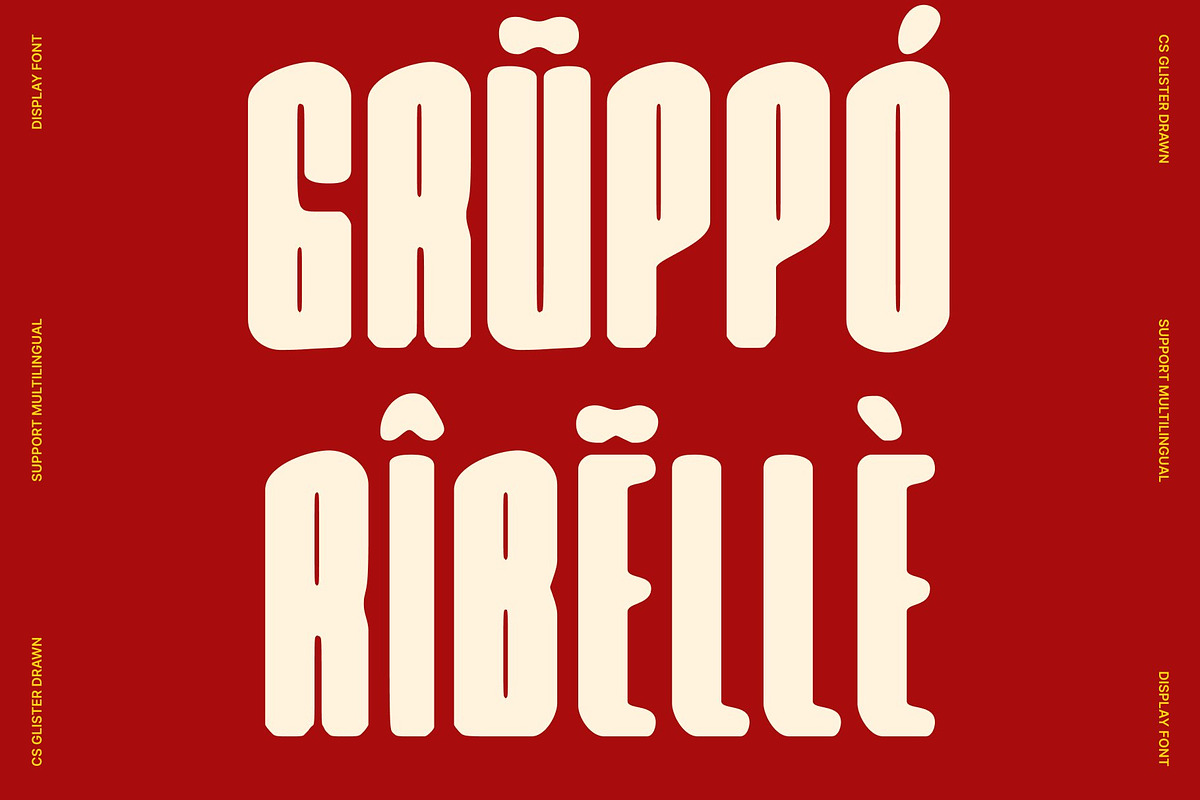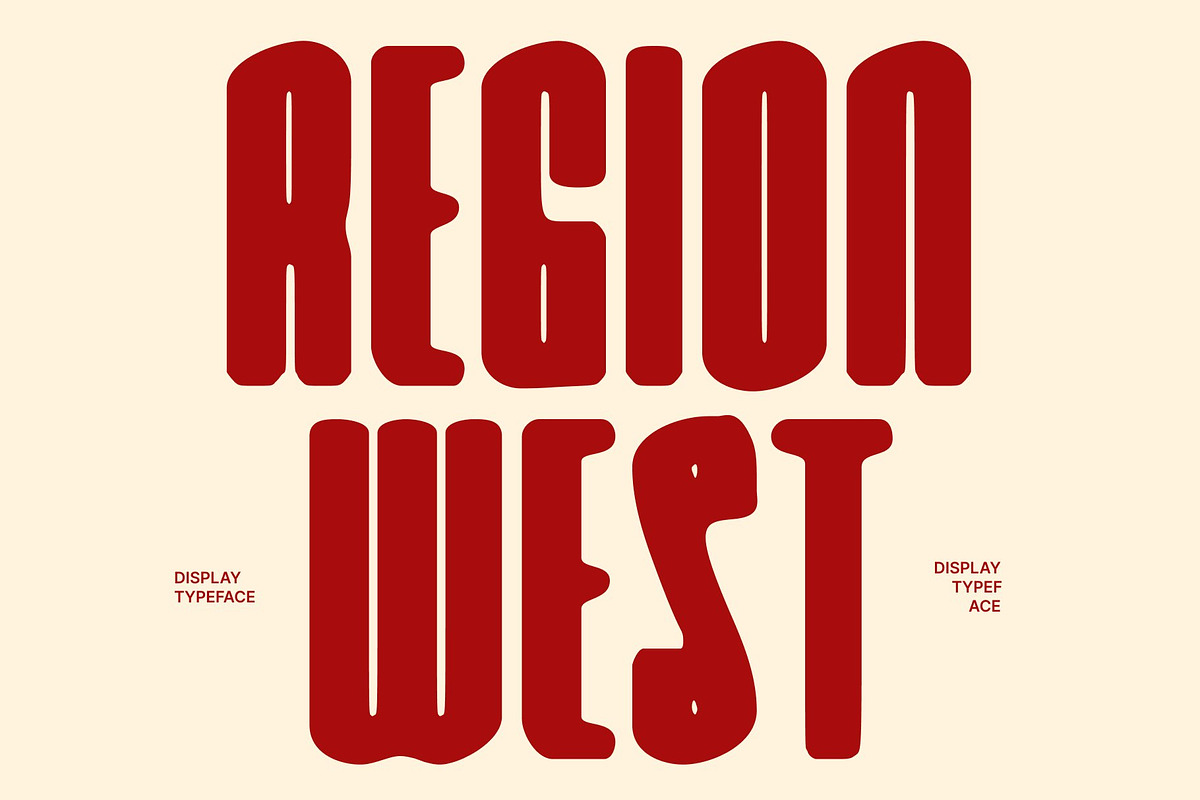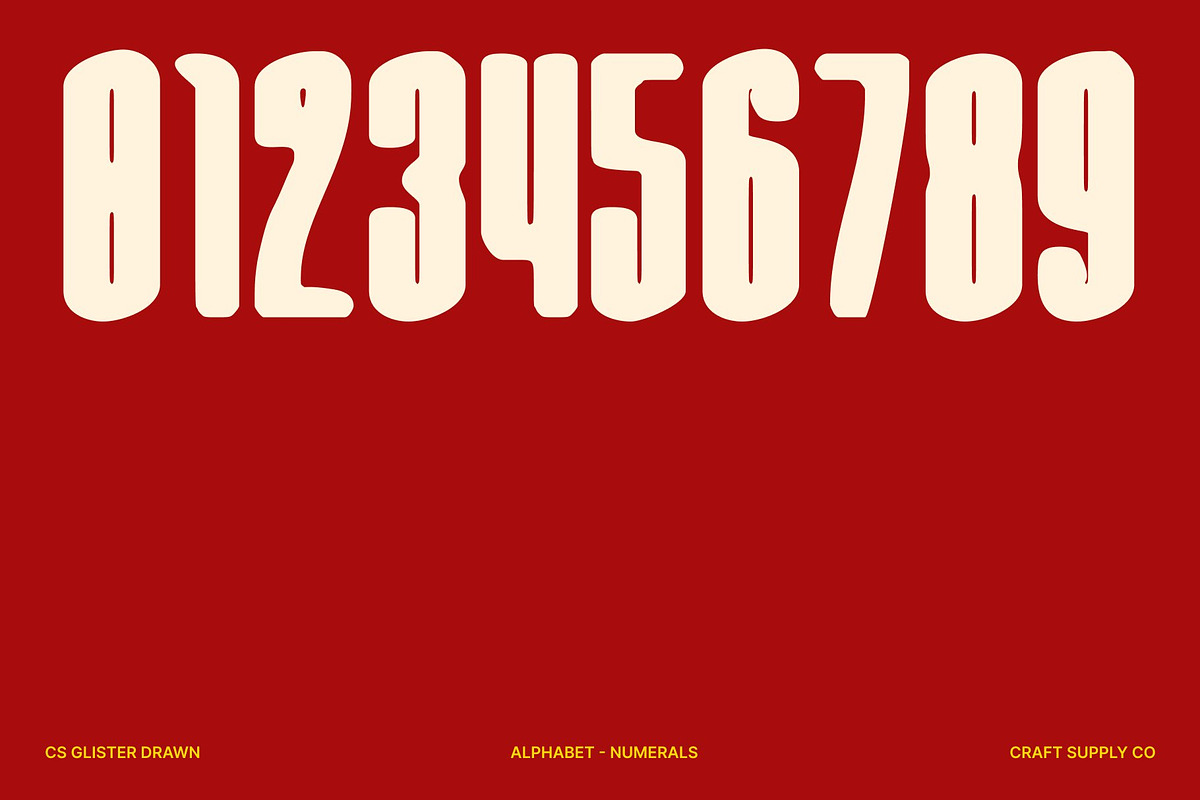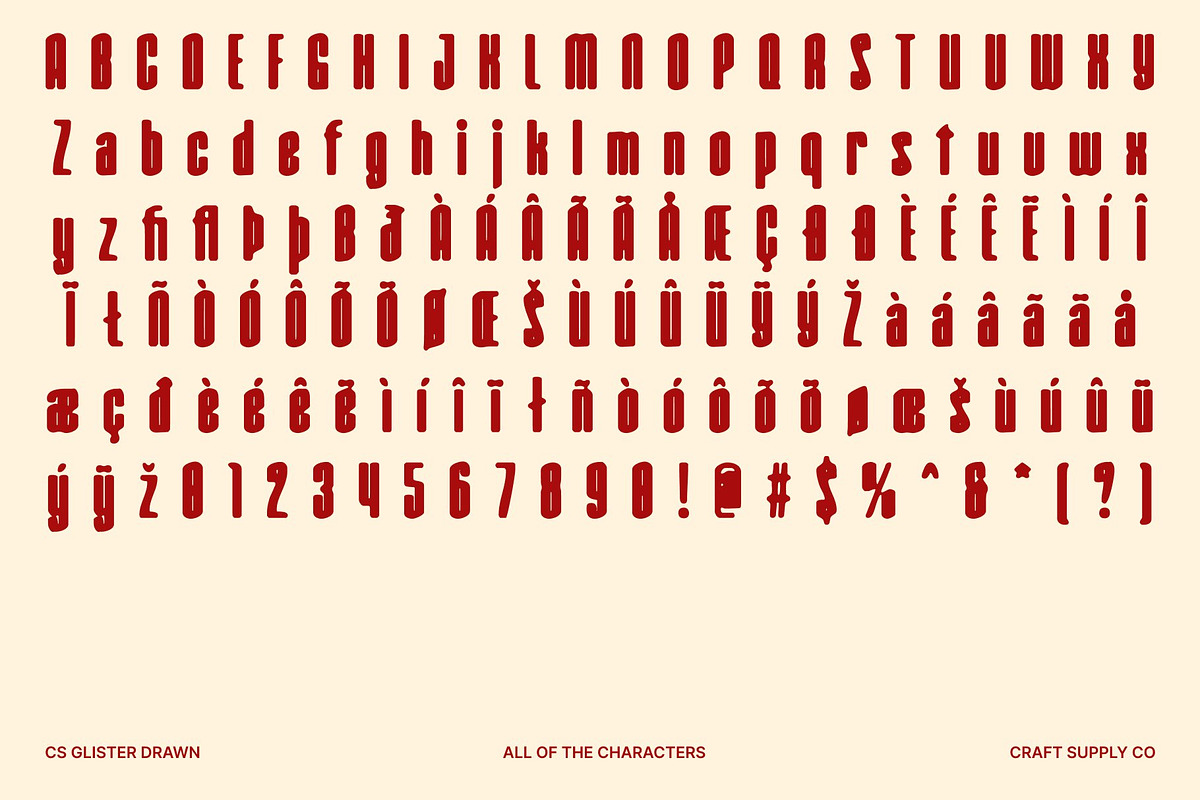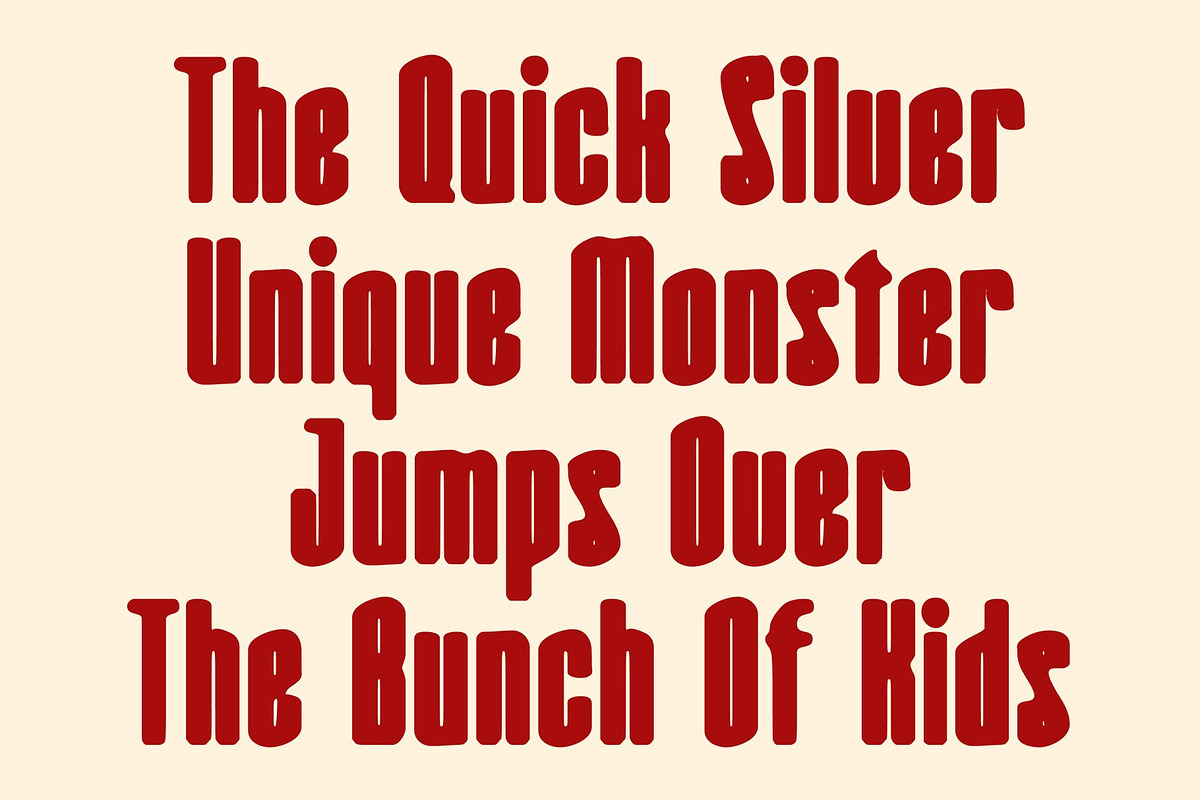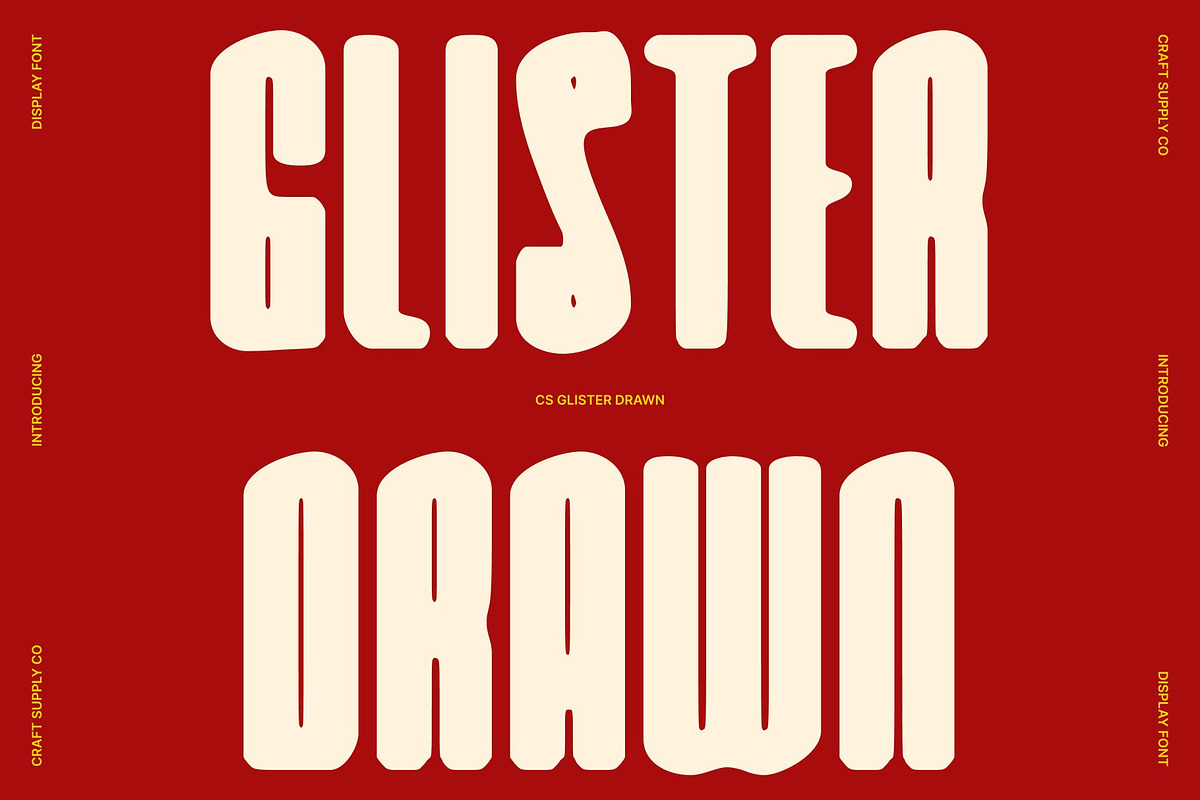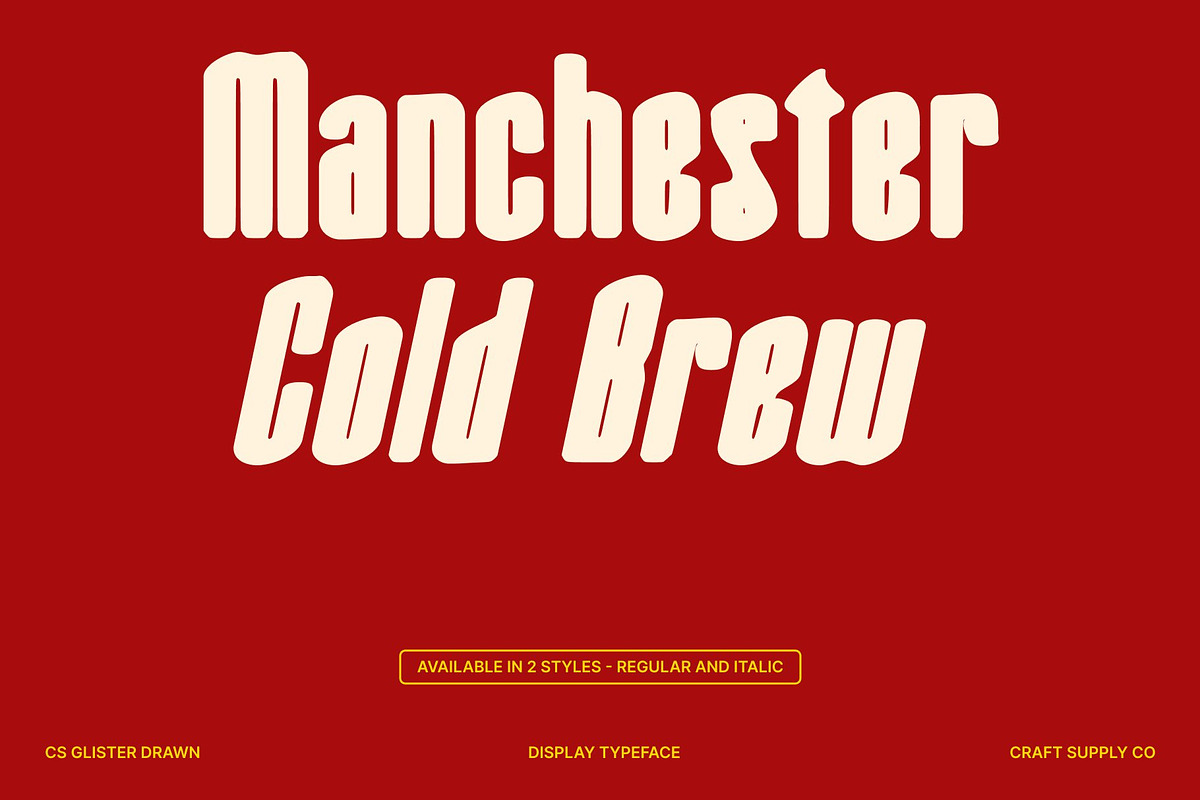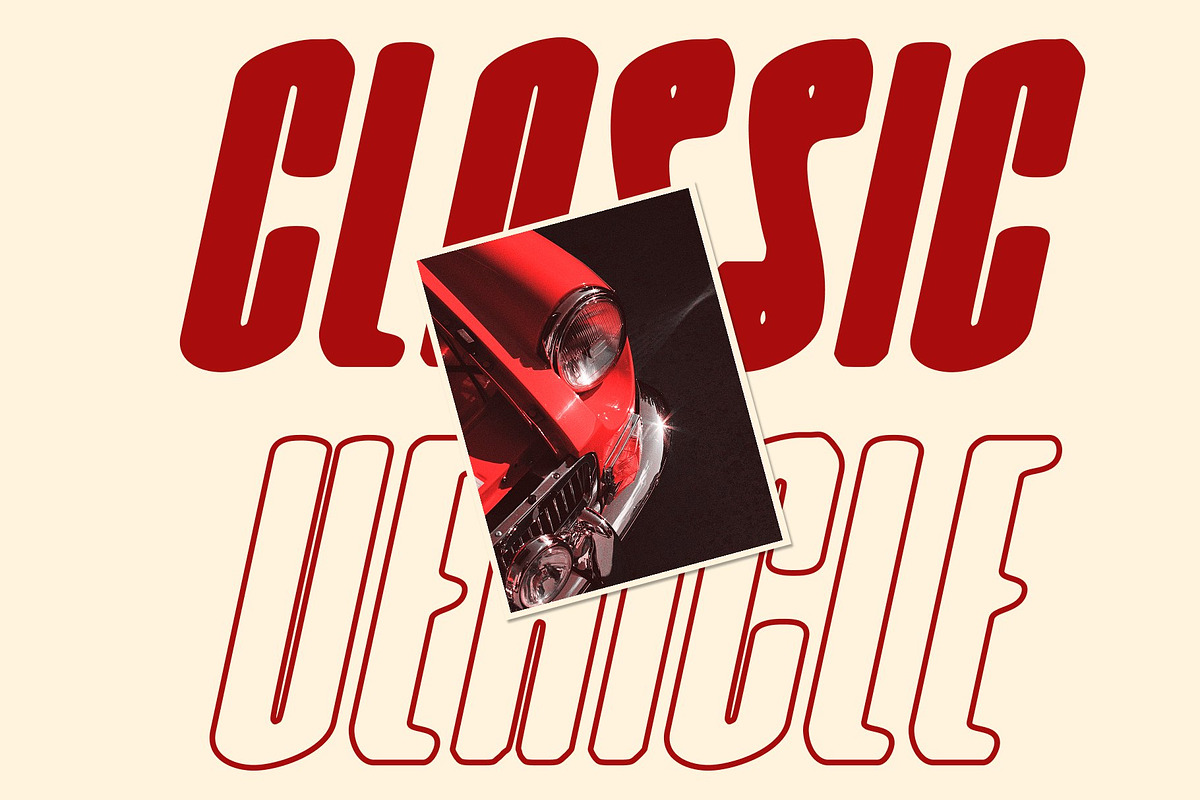
CS Glister Drawn
CS Glister Drawn – Bold Font: Classic Elegance with a Modern Punch
Bold and Condensed for Maximum Impact This is a modern display sans serif font designed to make a commanding visual statement. Its bold, condensed structure ensures maximum impact in headlines, posters, packaging, and logos, providing a dense yet legible form that dominates any layout. The hand-drawn effect adds texture and personality, giving each letter a handcrafted, expressive quality that enhances its presence without compromising readability.
Classic Touch for Elegant Personality While bold and modern, carries subtle classic influences that imbue it with elegance and sophistication. The refined proportions and clean details balance its assertive appearance, making the font feel both contemporary and timeless. The hand-drawn texture further emphasizes its artistic character, allowing designs to exude style, professionalism, and a touch of charm ideal for upscale branding, editorial projects, and premium visuals.
Striking Yet Versatile This is designed to stand out while remaining highly versatile. It adapts seamlessly across media and design applications, from fashion campaigns and product labels to social media graphics and website headers. Its distinctive voice commands attention while maintaining flexibility, giving creative professionals a reliable yet expressive tool for impactful typography.
Perfect for Designs That Want to Be Remembered More than a bold font, this font is a design statement. Its combination of assertive weight, elegant classic cues, and hand-drawn artistry makes it perfect for projects that require attention, sophistication, and lasting impression.
- CS Glister Drawn Regular
- CS Glister Drawn Italic